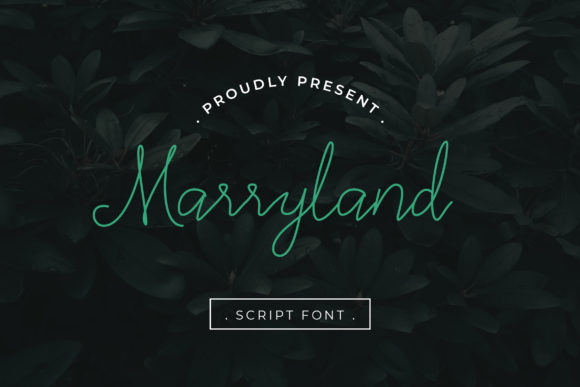
Embrace the Elegance with Marryland Font: The Perfect Symphony for Your Creative Expressions
In the realm of digital artistry, fonts play a pivotal role in shaping the visual identity of your creations. They have the power to evoke emotions, convey messages, and leave a lasting impression on your audience. Among the vast array of font families, script fonts stand out with their inherent charm and sophistication. And amidst this select group, Marryland Font emerges as a radiant gem, captivating hearts with its timeless beauty.
Marryland Font: A Timeless Masterpiece for Your Creative Endeavors
Crafted with meticulous care by the visionary minds at uicreativenet, Marryland Font is a modern script font that embodies readability, thinness, and style. Its smooth curves flow effortlessly across the screen, creating an aesthetic that is both visually appealing and effortlessly legible. Whether you're a seasoned designer or just starting your creative journey, Marryland Font is the perfect companion for your projects.
Tailored for Fashion Branding and Editorial Designs
The essence of Marryland Font lies in its innate ability to elevate fashion branding and editorial designs to new heights of elegance. Its delicate strokes and graceful lines bring a touch of refinement to any project, making it the ideal choice for creating logos, website headings, posters, invitations, and more. Whether you're showcasing the latest fashion trends or crafting compelling stories, Marryland Font will add a touch of sophistication that will leave your audience spellbound.
Experience the Marryland Font Advantage
1. Effortless Readability: Marryland Font prioritizes readability, ensuring that your message is conveyed with utmost clarity and precision.
2. Thin and Stylish Aesthetics: Its thin and stylish design adds a touch of modern elegance to your projects, making them stand out from the crowd.
3. Perfect for Fashion Branding: Marryland Font is the ideal choice for fashion brands looking to create a strong visual identity that resonates with their audience.
4. Editorial Designs Elevated: Its graceful lines and delicate strokes bring a touch of sophistication to editorial designs, making them both informative and visually appealing.
5. Versatile Applications: From logos and website headings to posters and invitations, Marryland Font's versatility knows no bounds, allowing you to explore your creativity freely.
Embark on a Creative Journey with Marryland Font
Marryland Font is more than just a font; it's an extension of your creative vision. Its timeless beauty and versatility make it the perfect choice for designers of all levels. So, dive into the world of Marryland Font today and let your imagination run wild. Experience the joy of creating designs that captivate and inspire, leaving a lasting impression on your audience. Let Marryland Font be your creative muse and watch your projects transform into masterpieces of visual delight.